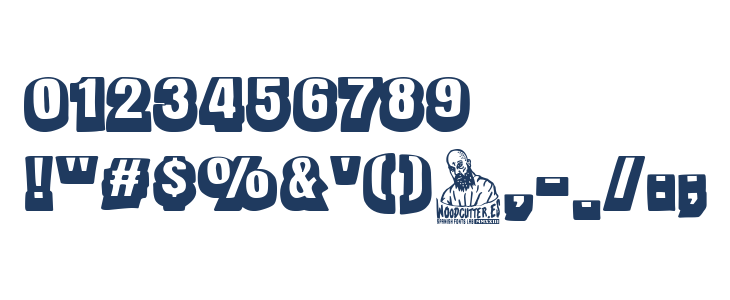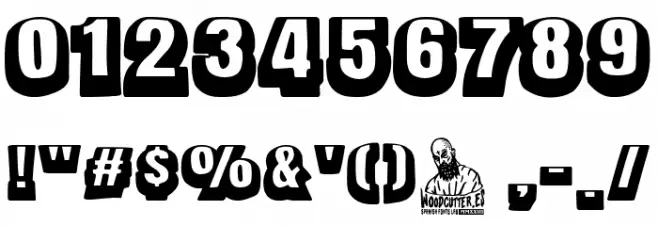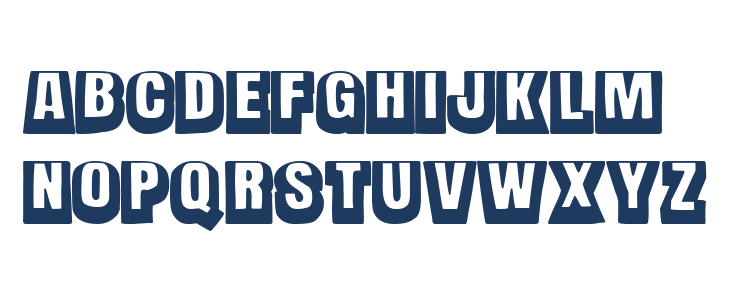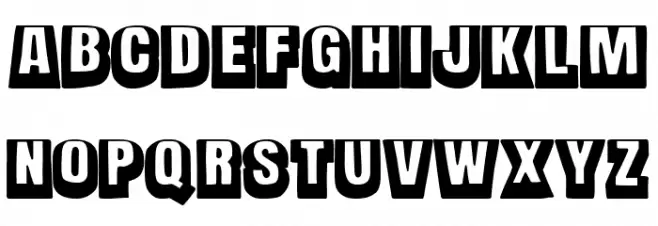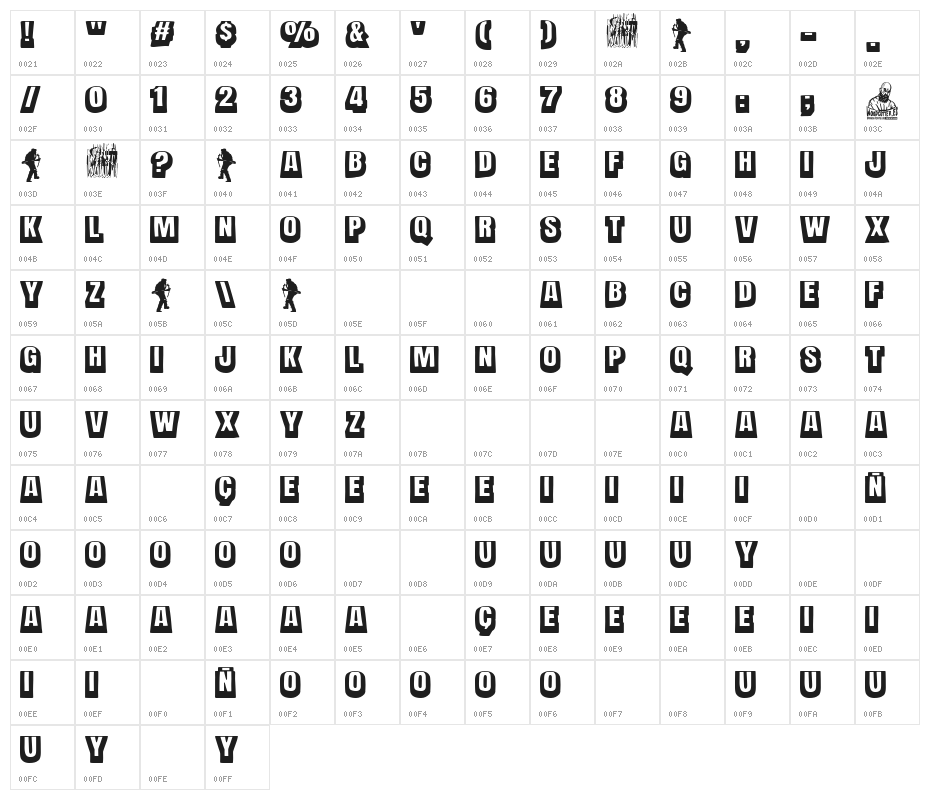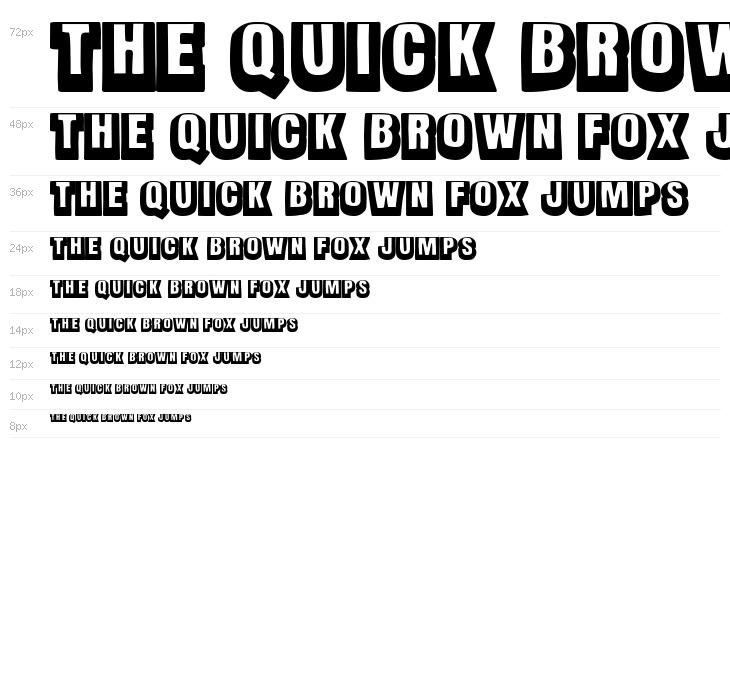
dimension 1974 Font
dimension 1974 Description
A bold, three-dimensional sans-serif display font with thick block letters and a heavy drop shadow effect, creating a strong sense of depth and impact. The characters are uppercase only, with consistent proportions and geometric shapes, and the shadowing gives a playful, dynamic appearance.
| Overall Style | Decorative, Playful, Retro |
| Use Case | Headlines, Posters, Logos, Signage |
| Proposed Projects | Posters, event flyers, comic book titles, signage, branding, childrenΓ’β¬β’s products, and attention-grabbing headlines. |